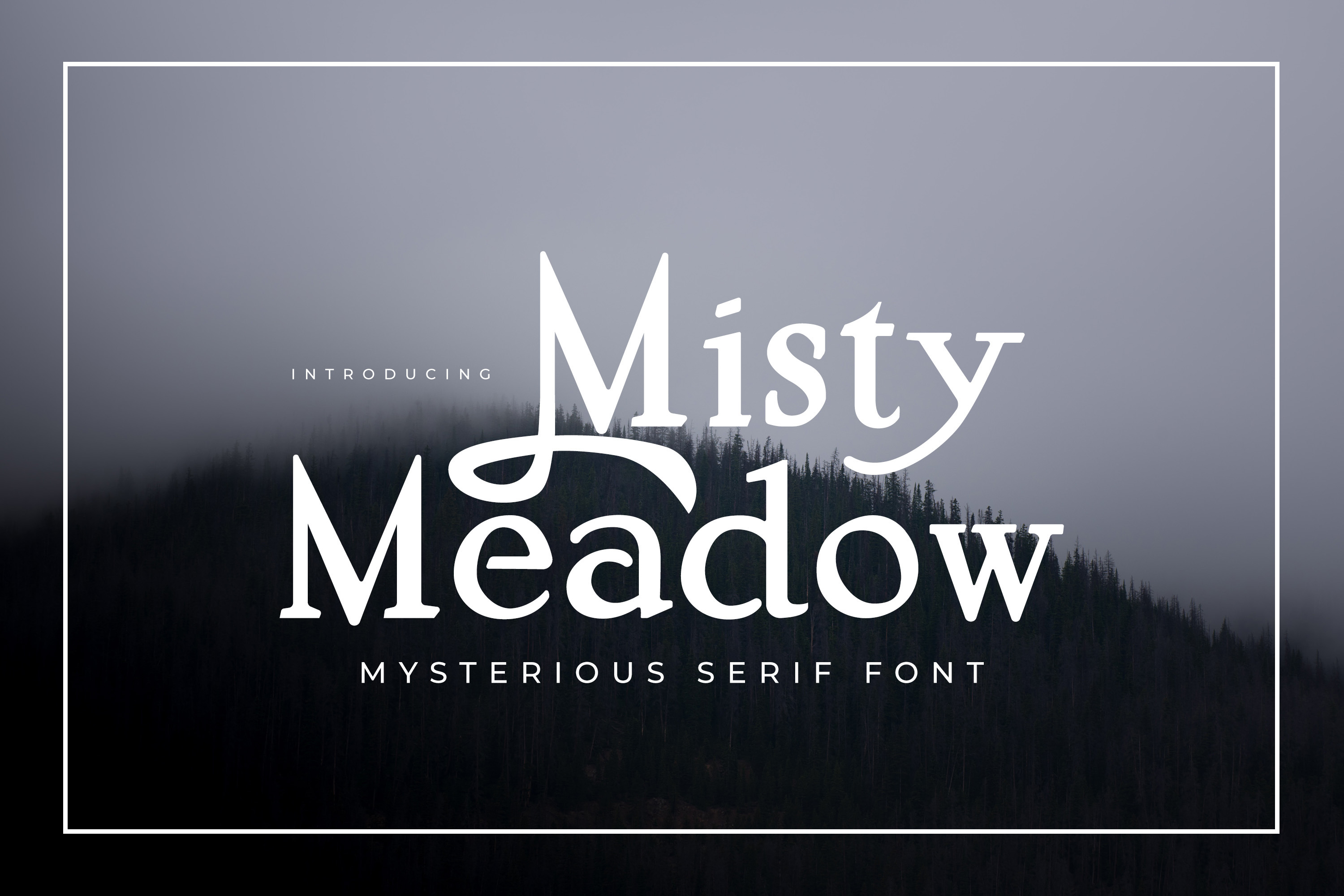
Misty Meadow - Mystical Serif Font
Misty Meadow - A classic Serif typeface with a mystical vibe.
Misty Meadow is an opentype font with alternative glyphs for most characters. Please see the character list in the preview images! To access the opentype features please make sure you have a suitable program installed (Photoshop, Illustrator, InDesign, CorelDraw etc). If you do not, you can still use the font, but without the special characters.